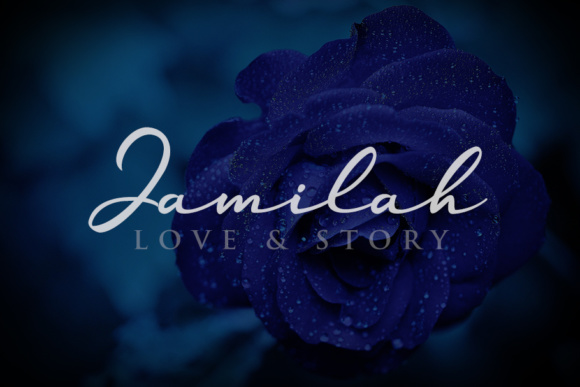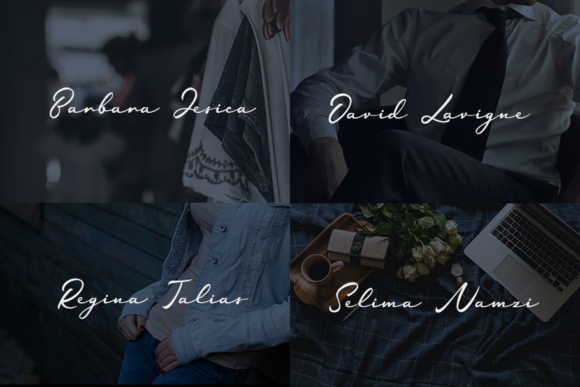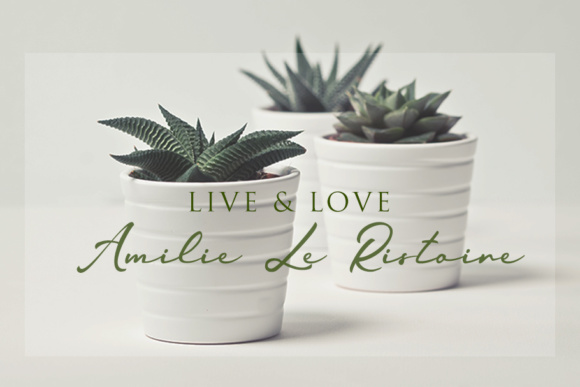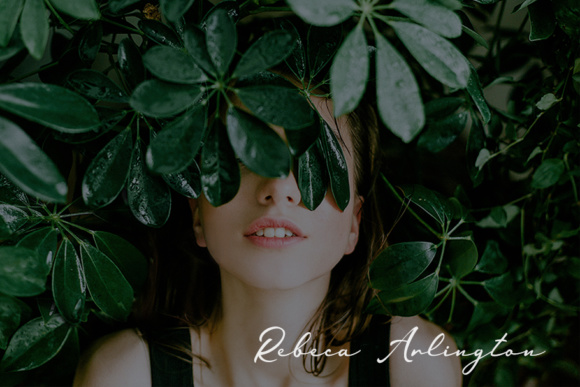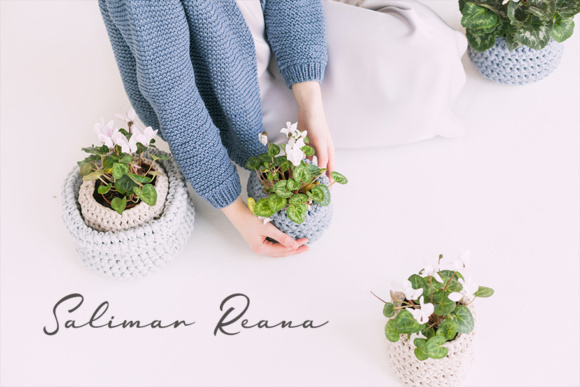
Jamilah Font
About Jamilah Font
The Jamilah is a modern calligraphy font with handwritten, sophisticated flows. It’s perfect for branding, wedding invites and cards.